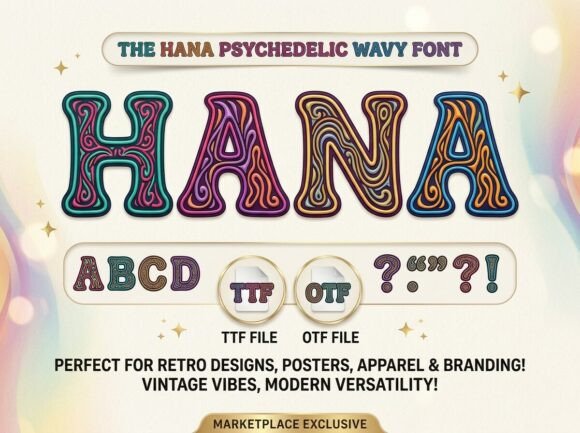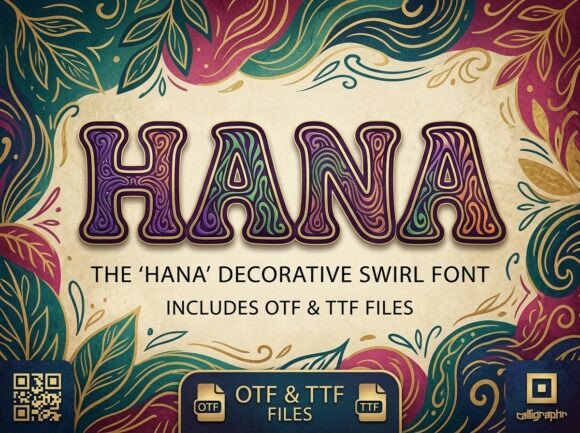
Introducing Hana Font: The Ultimate Decorative Display Font for Creative Projects
In the world of typography, a font can make or break a design. If you’re looking for a font that can add a touch of elegance, sophistication, and creativity to your projects, look no further than Hana Font. This stunning decorative display font is designed to be the center of attention, featuring unique artistic elements and a strong visual personality that sets it apart from the ordinary.
What Makes Hana Font So Special?
Hana Font is perfect for creators who want to break away from the crowd and add a touch of uniqueness to their designs. With its intricate details and creative letterforms, this font is ideal for high-impact designs where the typography needs to do the talking. Whether you’re designing a modern poster, a unique brand identity, or eye-catching social media content, Hana Font adds an instant “wow” factor to any project.
One of the best things about Hana Font is its versatility. This font is perfect for a wide range of design applications, including:
- Poster Design: Create headlines that people can’t look away from. With Hana Font, you can create stunning posters that grab attention and leave a lasting impression.
- Branding & Logos: Build a unique identity for creative businesses. Hana Font is perfect for creating artistic logos and brand identities that stand out from the crowd.
- Apparel & Merch: Perfect for T-shirts, hoodies, and tote bag designs. Add a touch of elegance and sophistication to your apparel and merchandise with Hana Font.
- Social Media: Make your quotes and announcements stand out in the feed. With Hana Font, you can create eye-catching social media content that grabs attention and drives engagement.
- Packaging: Give your products a premium feel with Hana Font. This font is perfect for creating stunning packaging designs that stand out on store shelves.
Key Features of Hana Font
So, what makes Hana Font so special? Here are some of its key features:
- Unique Artistic Elements: Hana Font features unique artistic elements that set it apart from other fonts.
- Strong Visual Personality: This font has a strong visual personality that adds a touch of elegance and sophistication to any design.
- Intricate Details: Hana Font features intricate details and creative letterforms that make it perfect for high-impact designs.
- Professional and Polished Finish: Despite its creative and artistic feel, Hana Font maintains a professional and polished finish that’s perfect for a wide range of design applications.
Why Choose Hana Font?
So, why choose Hana Font for your next design project? Here are just a few reasons:
- Adds a Touch of Elegance: Hana Font adds a touch of elegance and sophistication to any design.
- Perfect for Creative Projects: This font is perfect for creative projects that require a unique and artistic touch.
- Versatile: Hana Font is versatile enough for a wide range of design applications, from posters and logos to social media content and packaging.
In conclusion, Hana Font is a stunning decorative display font that’s perfect for creative projects that require a unique and artistic touch. With its intricate details, creative letterforms, and strong visual personality, this font is ideal for high-impact designs where the typography needs to do the talking. Whether you’re designing a modern poster, a unique brand identity, or eye-catching social media content, Hana Font adds an instant “wow” factor to any project. So, why settle for an ordinary font when you can choose Hana Font for your next design project?
- Hana Font is a decorative display font designed to be the center of attention.
- This font features unique artistic elements and a strong visual personality.
- Hana Font is perfect for creative projects, including posters, logos, social media content, and packaging.
- This font is versatile enough for a wide range of design applications.
- Hana Font adds a touch of elegance and sophistication to any design.